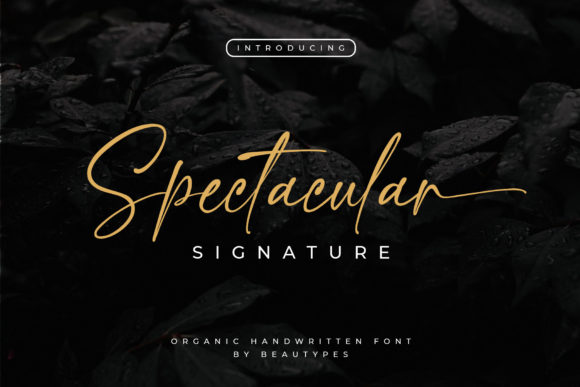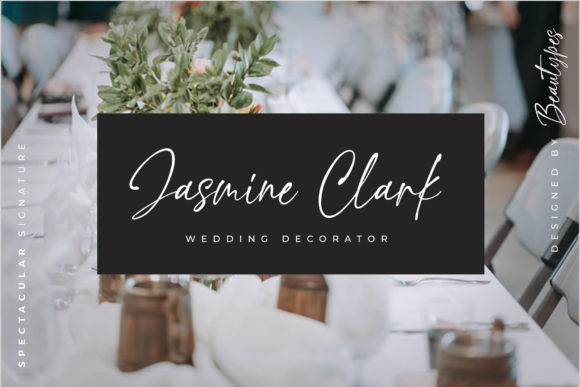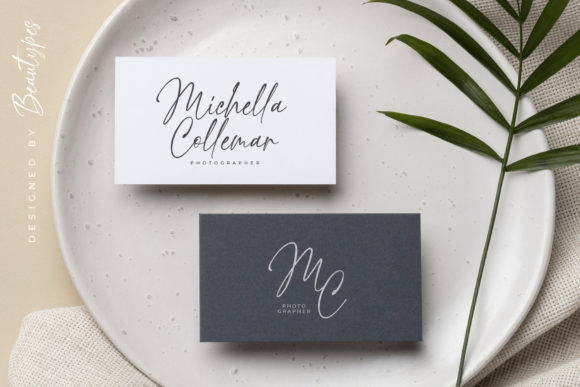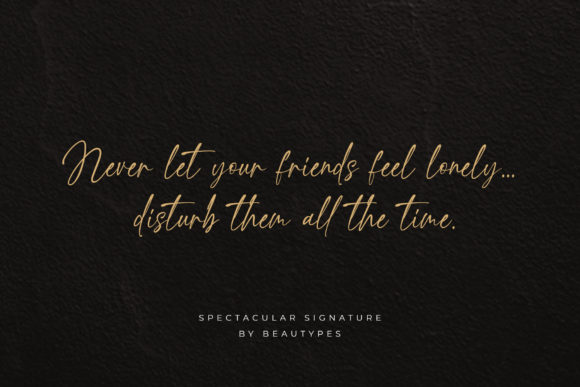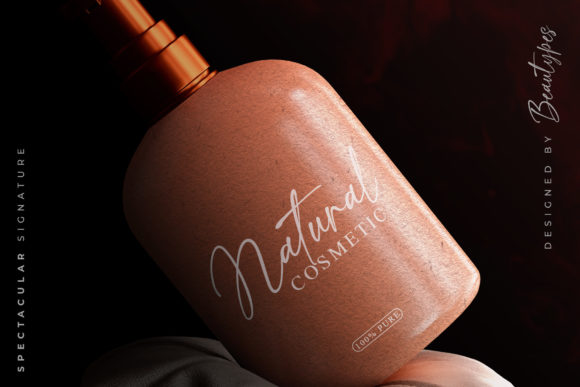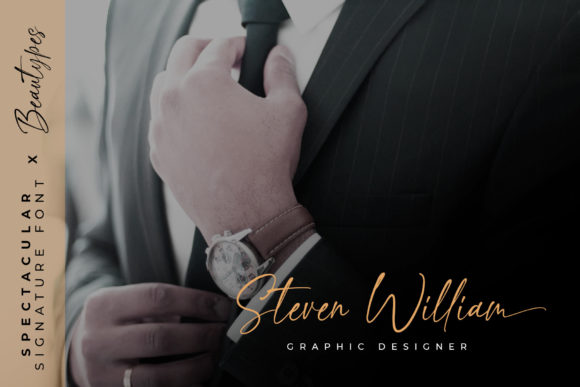
Spectacular Signature Font
About Spectacular Signature Font
Spectacular Signature is an organic handwritten font suitable for branding, signature, wedding invitation, promotion, product packaging, and other needs. This font is PUA encoded, which means you can access all of the glyphs and swashes with ease!